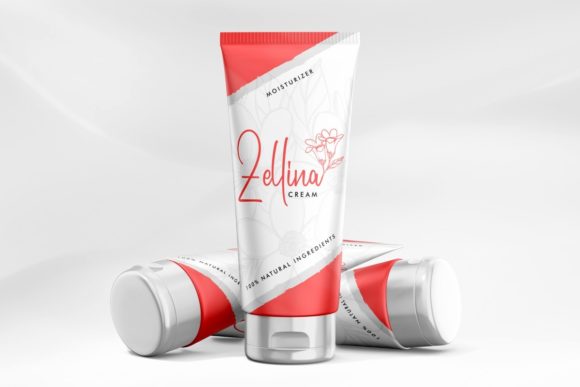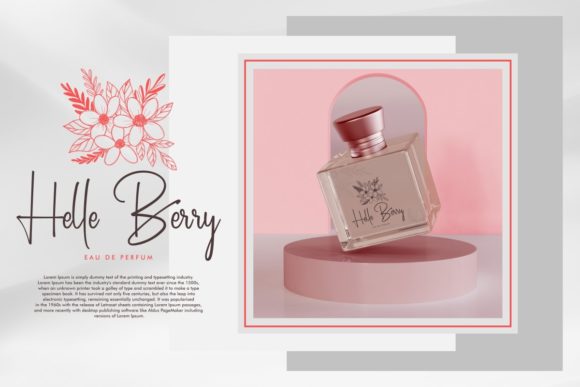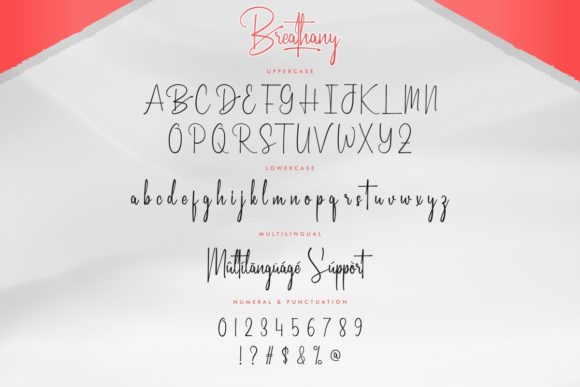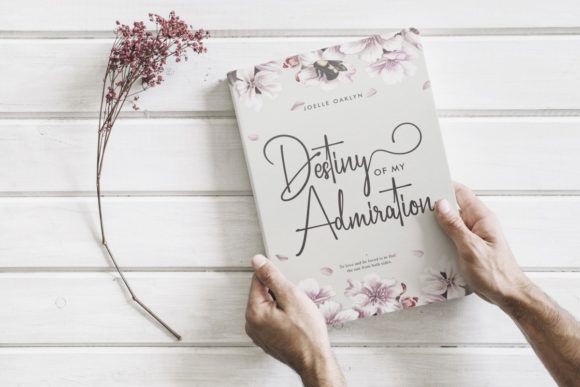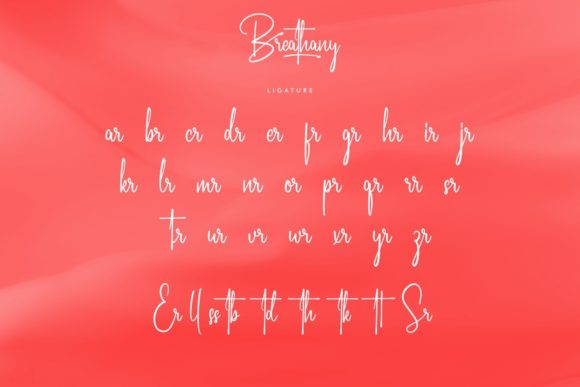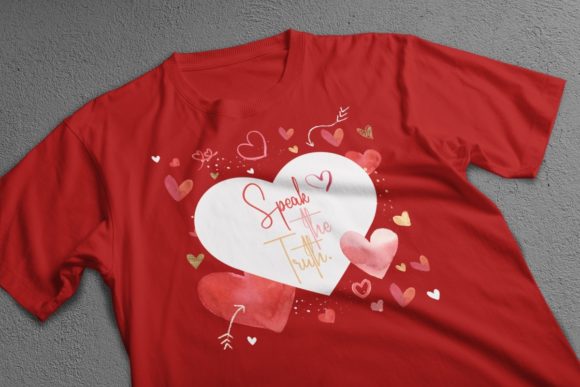
Introducing Breathany Font: A Timeless Signature Handwritten Font
In the world of typography, a well-crafted font can elevate a design project from ordinary to extraordinary. For designers and crafters seeking a classic yet modern signature handwritten font, Breathany Font is an exceptional choice. This elegant font is meticulously designed to mimic the fluidity and natural flow of handwritten script, making it perfect for adding a personal touch to various design projects.
The Characteristics of Breathany Font
Breathany Font is distinguished by its classic signature style, infused with modern elegance. Each character is carefully crafted to ensure that the font exudes a sense of sophistication and refinement. The attention to detail in Breathany’s design allows it to stand out in a crowded field of typefaces, offering a unique blend of traditional and contemporary flair.
PUA Encoding for Ease of Use
One of the standout features of Breathany Font is its PUA (Private Use Area) encoding. This means that users can easily access all the glyphs and swashes, making it incredibly user-friendly. The PUA encoding allows designers to unlock the full potential of the font, providing them with a wide range of creative options. Whether you’re looking to add a touch of elegance to a wedding invitation, a logo, or a packaging design, Breathany’s encoded glyphs and swashes can be accessed with ease.
Breathany Font’s versatility is one of its most compelling attributes. Its classic yet modern aesthetic makes it suitable for a wide array of design applications. Here are a few examples of how Breathany can be used:
- Wedding and Event Stationery: Add a touch of elegance to wedding invitations, save the dates, and other event-related materials.
- Branding and Logo Design: Create a memorable brand identity with a custom logo that exudes sophistication and style.
- Packaging Design: Elevate product packaging with a font that combines classic charm with modern appeal.
- Digital Media: Use Breathany in digital content such as social media graphics, blog headers, and email newsletters to stand out.
Why Choose Breathany Font?
For designers and crafters looking for a font that offers both style and functionality, Breathany Font is an excellent choice. Here are a few reasons why:
- Unique Aesthetic: Breathany offers a distinctive look that can help any design project stand out.
- Ease of Use: With PUA encoding, accessing and using the various glyphs and swashes is straightforward.
- Versatility: The font’s classic yet modern design makes it suitable for a wide range of applications.
- Support for Creative Freedom: Breathany’s comprehensive set of glyphs and swashes supports designers in achieving their creative vision.
Breathany Font is a beautiful, classic signature handwritten font that brings a touch of elegance and modernity to any design project. Its careful craftsmanship, combined with PUA encoding for ease of use, makes it an invaluable resource for designers and crafters. Whether you’re working on a wedding invitation, a logo, or digital media, Breathany offers the perfect blend of style, versatility, and creativity. By choosing Breathany Font, you’re not just selecting a typeface; you’re elevating your design to new heights of sophistication and appeal.